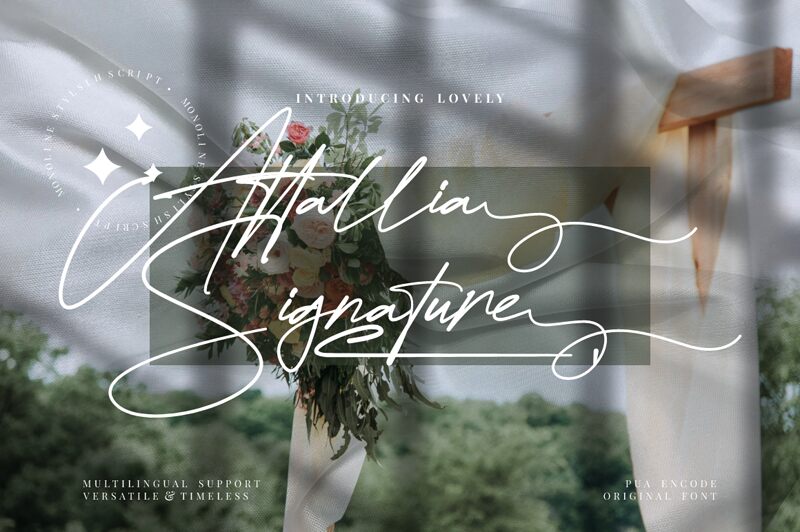
Attallia Signature, crafted by the talented designers at FinTypeStudio, is a captivating handwritten font that exudes a sense of elegance and sophistication. The light, fluid strokes and organic, signature-inspired shapes give the font a warm, personalized feel, evoking a sense of artistry and authenticity. The distinctive flow and graceful flourishes of Attallia Signature make it a visually striking choice, perfectly suited for adding a touch of refined charm to a wide range of design projects.
This versatile font can elevate a variety of applications, from wedding stationery and invitations to branding materials, editorial layouts, and beyond. The natural, handcrafted aesthetic of Attallia Signature lends itself particularly well to projects seeking to convey a personal, bespoke touch, making it an excellent selection for crafting distinctive logos, promotional items, and custom signage.